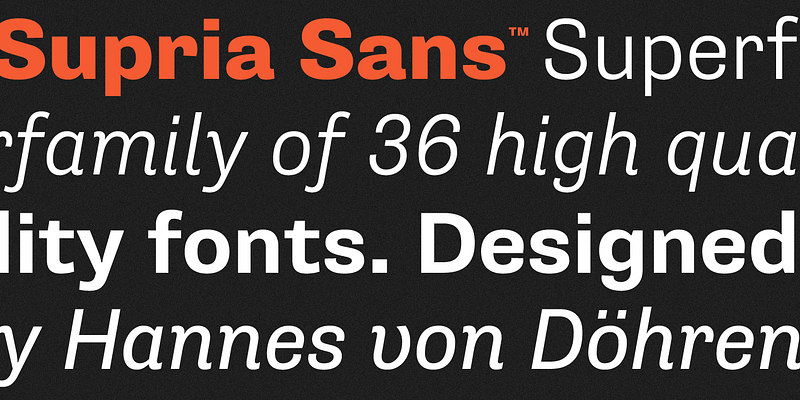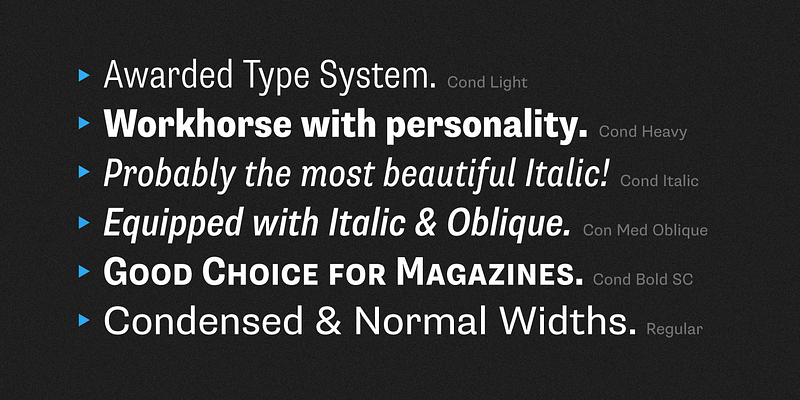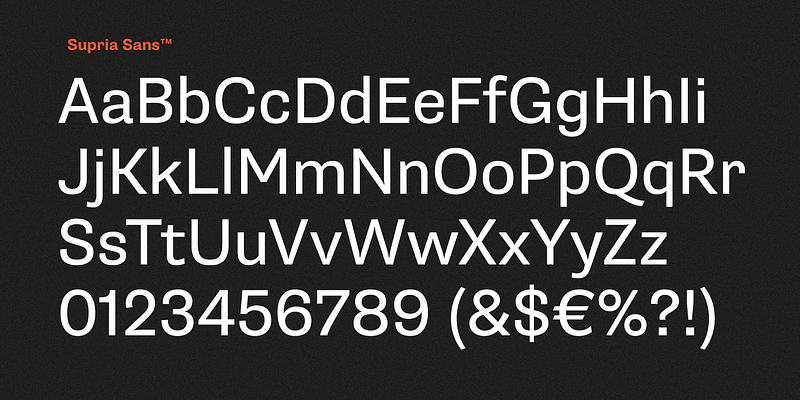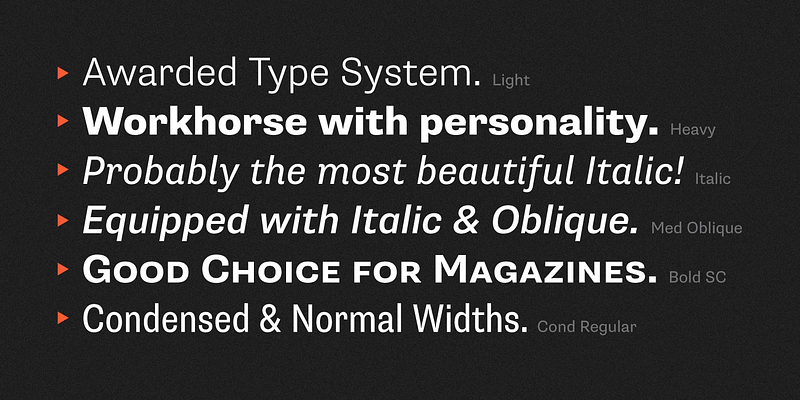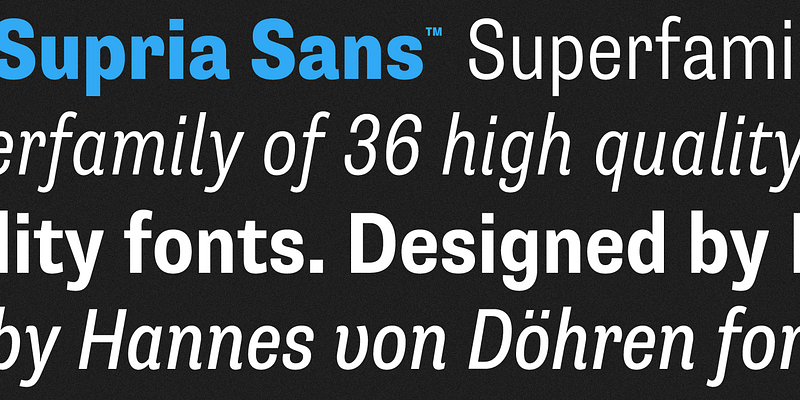
The design has just the right amount of character to be memorable and unique but also restrained enough to remain thoroughly useful. Bypassing the polished rationality of Neo-Grotesques, it builds upon the hearty solidity of 19th-century faces, a heritage revealed in the curled-in jaws of glyphs like the ‘C’ or the faucet-shaped ‘r’. While some details seem quite charming, the design never gets coquettish. With its blunt inktraps, tight curves, and solid weight, Supria is ready for work.